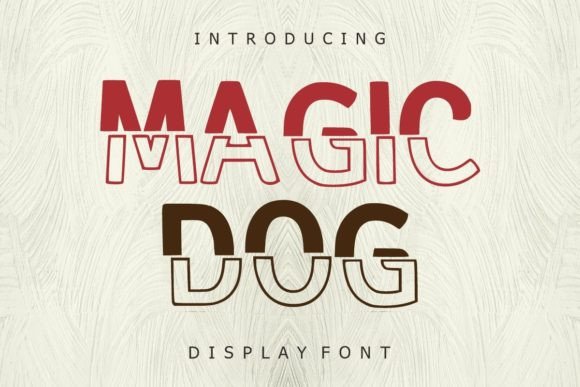
Introducing Magic Dog Font, the paw-some display font that brings a touch of playful charm to your designs!
Step into a world of whimsy and enchantment with Magic Dog, a font that captures the spirit of joy and imagination. This double-outlined display font dances across your screen, creating a visual spectacle that's sure to captivate and delight. Whether you're crafting logos, posters, flyers, or invitations, Magic Dog adds a dash of fun and personality that will make your creations stand out from the pack.
Specially crafted by the talented team at Infinity Art Studio, Magic Dog is a true work of art. Its bold, cartoonish style commands attention, while its playful curves and vibrant energy infuse your designs with a sense of magic and wonder.
With Magic Dog in your font arsenal, you'll never have a dull moment. Let your creativity run wild as you explore the endless possibilities this font offers. From eye-catching headlines to whimsical illustrations, Magic Dog is your perfect companion for projects that demand a touch of whimsy and cheer.
So, unleash your inner artist and embark on an adventure with Magic Dog. Let your imagination soar as you create designs that are as unique and enchanting as the font itself. From heartwarming children's books to vibrant marketing campaigns, Magic Dog is your trusty sidekick, ready to add a touch of magic wherever it goes.